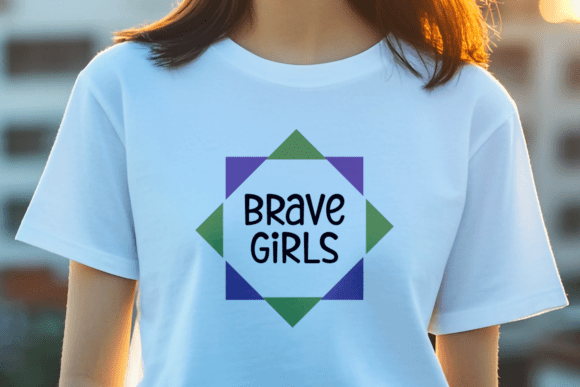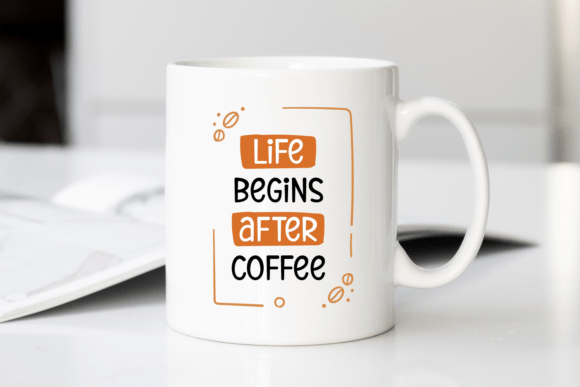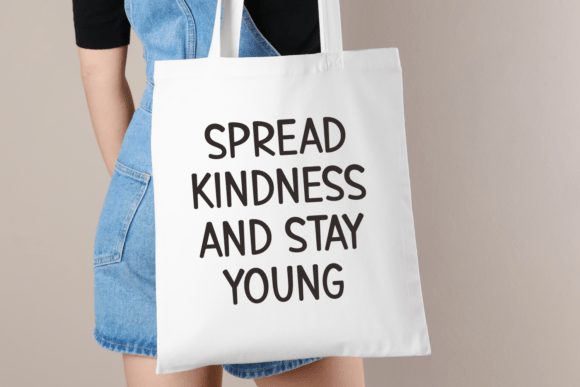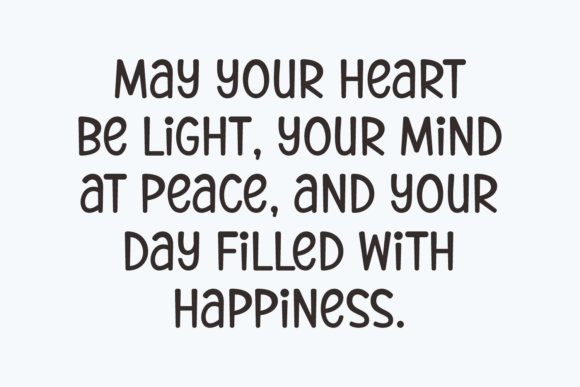
The Quest for the Perfect Font: Discovering Beautiful Rounded
I’ll never forget the time I was working on a branding project for a trendy new coffee shop. My client wanted a logo that exuded modern sophistication, but I was struggling to find the right font. I scoured the internet, tried out dozens of options, but nothing seemed quite right. That was until I stumbled upon Beautiful Rounded, a refined and bold condensed display font that instantly caught my eye. In this article, I’ll share my experience with this stunning font, its features, and how to make the most of it in your designs.
First Impressions: What I Love About Beautiful Rounded
Beautiful Rounded is a game-changer for designers looking for a sleek and sophisticated font. Here are some of the things I love about it:
- ✨ Clean and smooth letters: The rounded edges give the font a friendly, approachable feel that’s perfect for modern brands.
- ✅ Tall and charming design: The font’s tall letters make it perfect for headlines, titles, and logos that need to stand out.
- 💡 Versatile and adaptable: Beautiful Rounded works beautifully for a wide range of design themes, from joyful and playful to sleek and professional.
The Not-So-Perfect: Small Quirks and Limitations
While Beautiful Rounded is an amazing font, it’s not without its quirks. Here are a few things to keep in mind:
- 🤔 Limited use for body text: Due to its condensed design, Beautiful Rounded may not be the best choice for longer blocks of text.
- ⚠️ Some letter combinations may require manual kerning: As with any font, some letter combinations may require manual kerning to achieve optimal results.
- Experiment with OpenType features like ligatures and stylistic alternates to add visual interest to your text.
- Explore glyphs and stylistic alternates to add unique touches to your design.
The Designer Inspiration Behind Beautiful Rounded
Beautiful Rounded was designed with the modern designer in mind. Its creator, a talented typographer, aimed to craft a font that would be both elegant and versatile. Inspired by the clean lines and rounded edges of modern architecture, Beautiful Rounded is the perfect blend of form and function.
| Font Name | Beautiful Rounded Font |
| Author | Eightde |
| What is the best use for Beautiful Rounded? | Beautiful Rounded is perfect for logos, branding, packaging, headlines, book covers, and joyful design themes. |
| Is Beautiful Rounded suitable for body text? | While it’s possible to use Beautiful Rounded for body text, it’s not recommended due to its condensed design. |
| Does Beautiful Rounded come with OpenType features? | Yes, Beautiful Rounded features OpenType features like ligatures and stylistic alternates. |